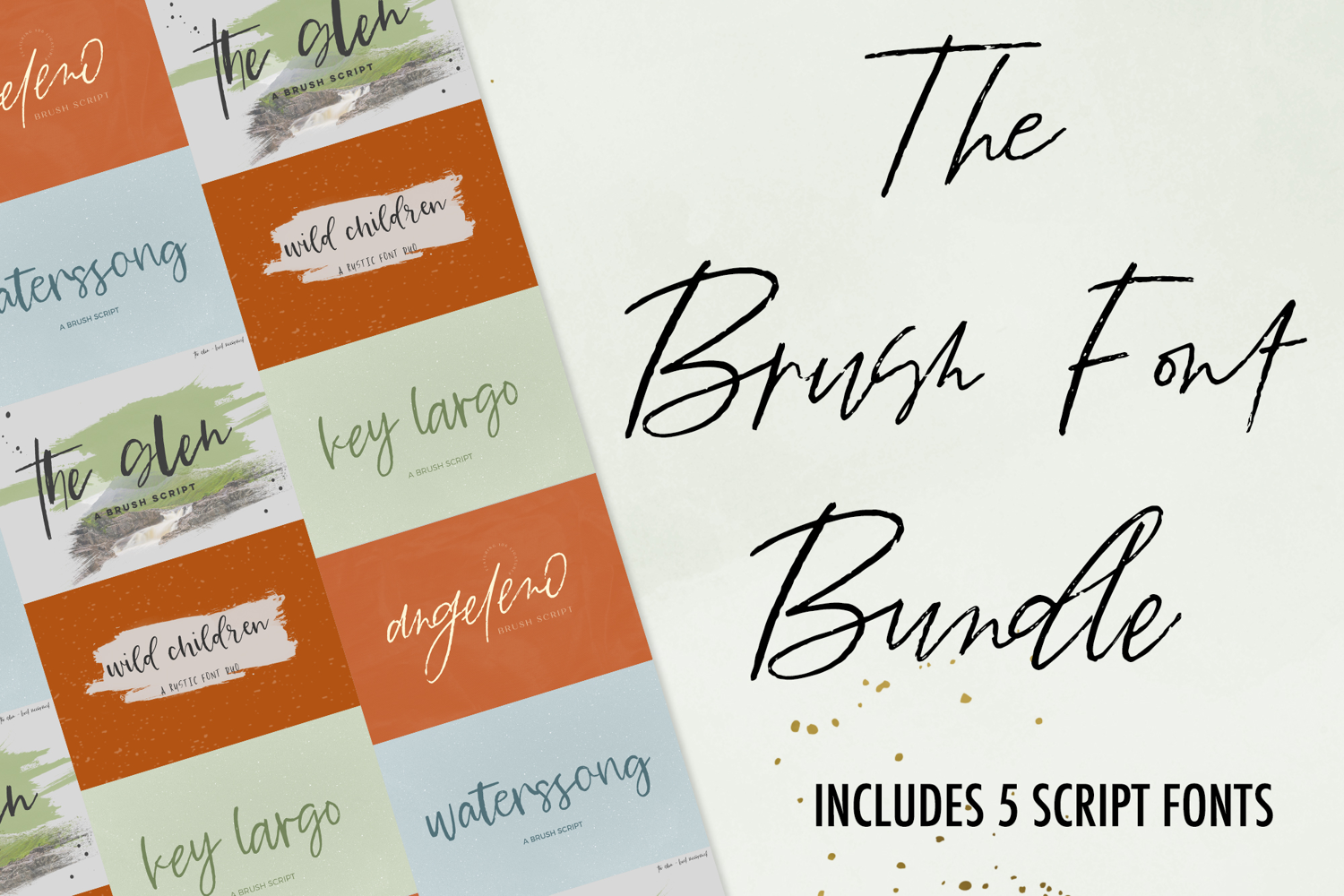
The Brush Font Bundle
Say hello to the Brush Font Bundle, a textured collection of script fonts. You’ll file $58 worth of fonts in this bundle for only $18! I love to use these fonts for edgy, moody logos + branding, website elements, & printables! Font file types provided are .otf, .ttf, and webfont (.eot, .woff, and .woff2) files.
This bundle includes:
- Wild Children (two fonts - script & sans)
- Angeleno Brush Script
- Waterssong Brush Script
- The Glen Brush Script
- and Key Largo Brush Script
Please note that brush style fonts may not be the best option for crafting projects using Cricut or Silhouette machines because they're heavily textured.